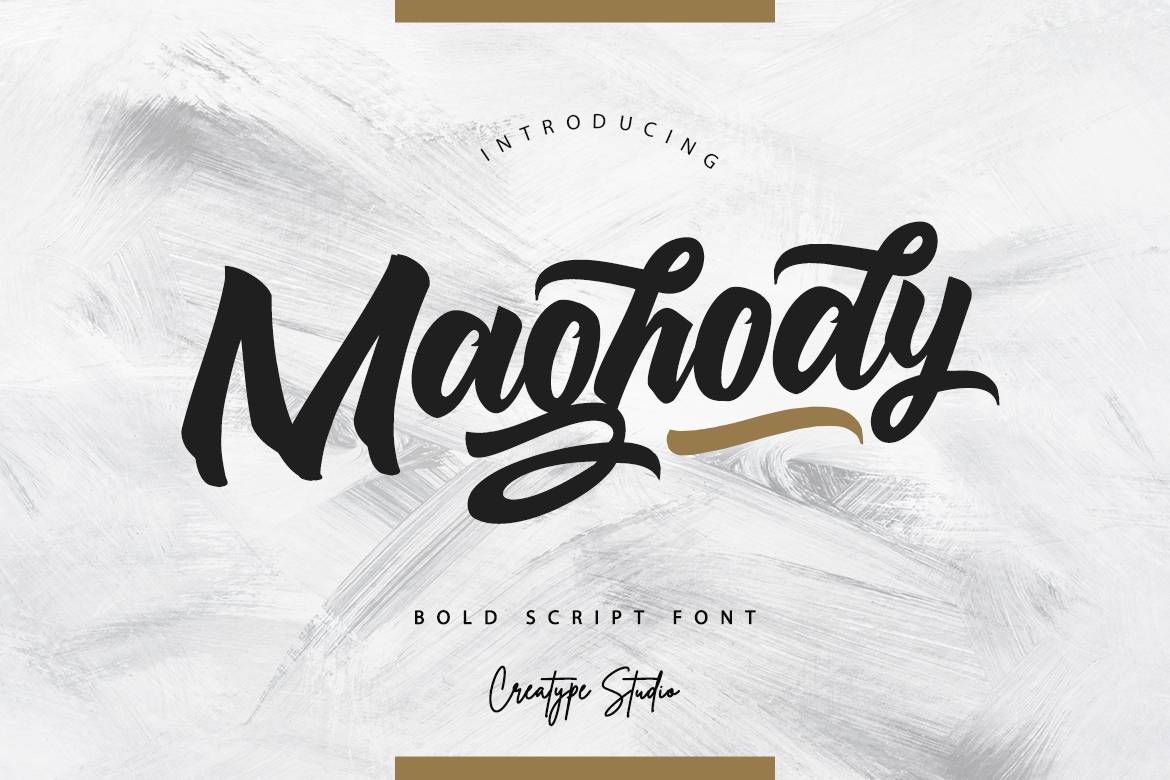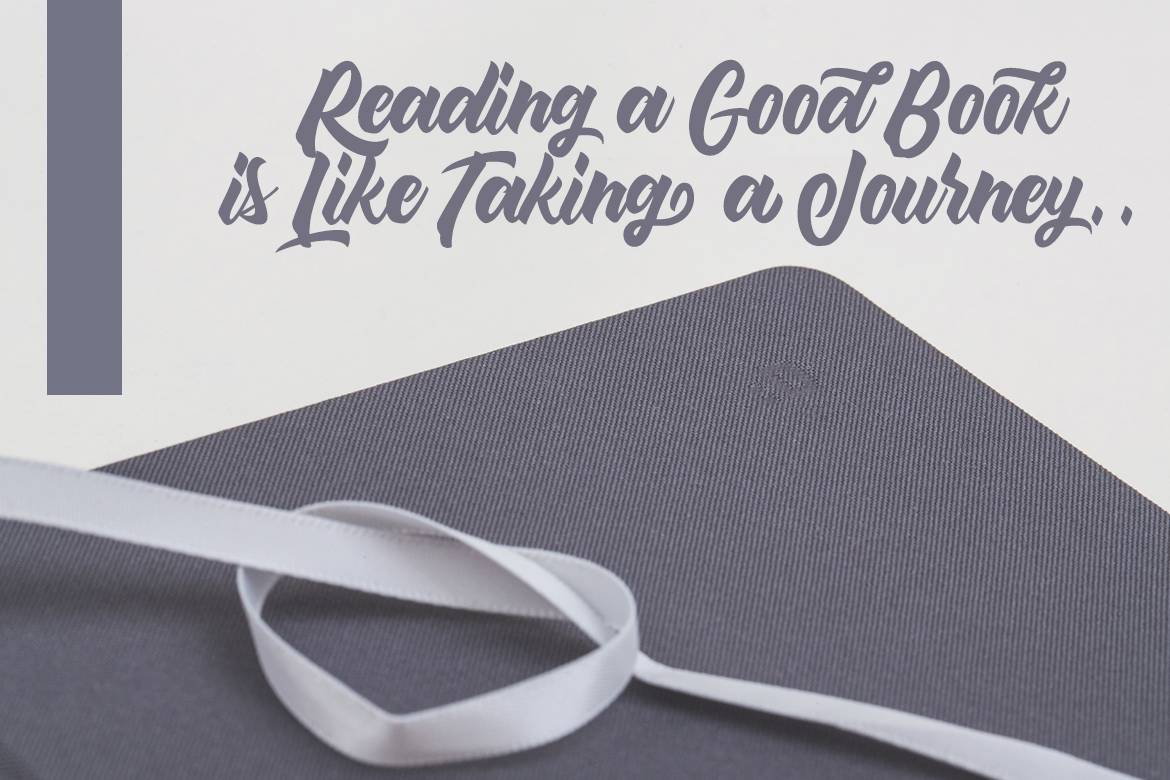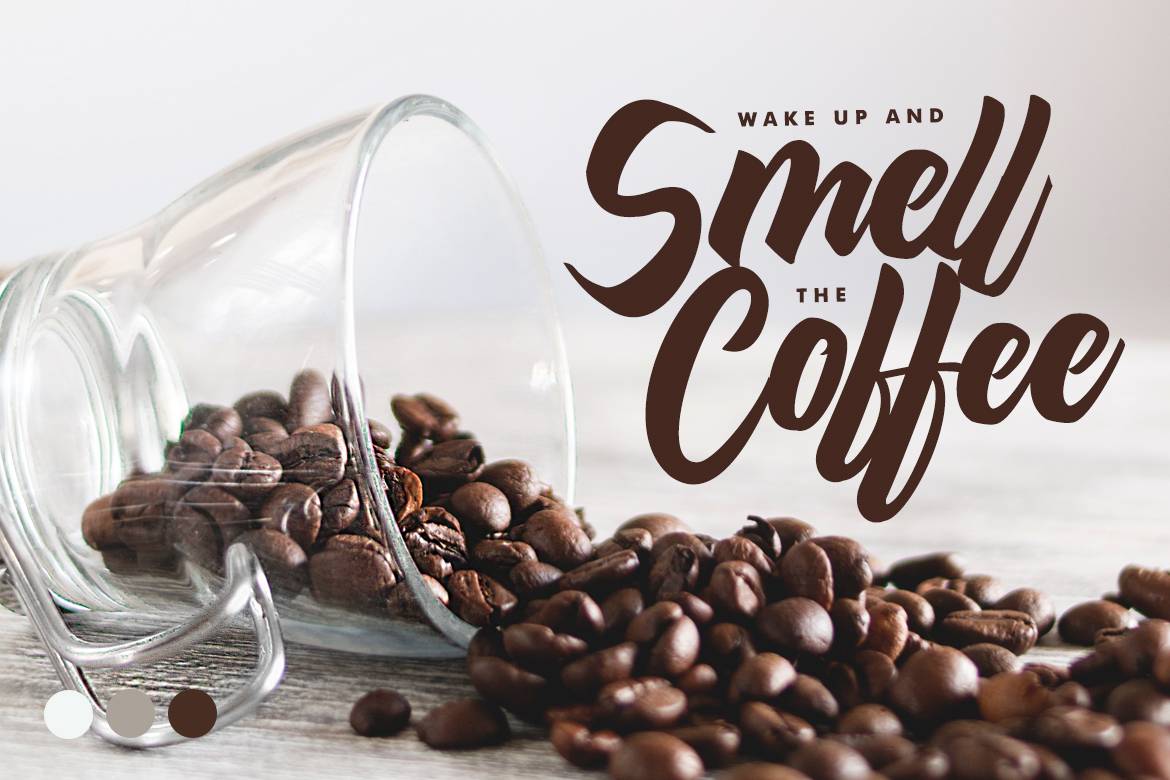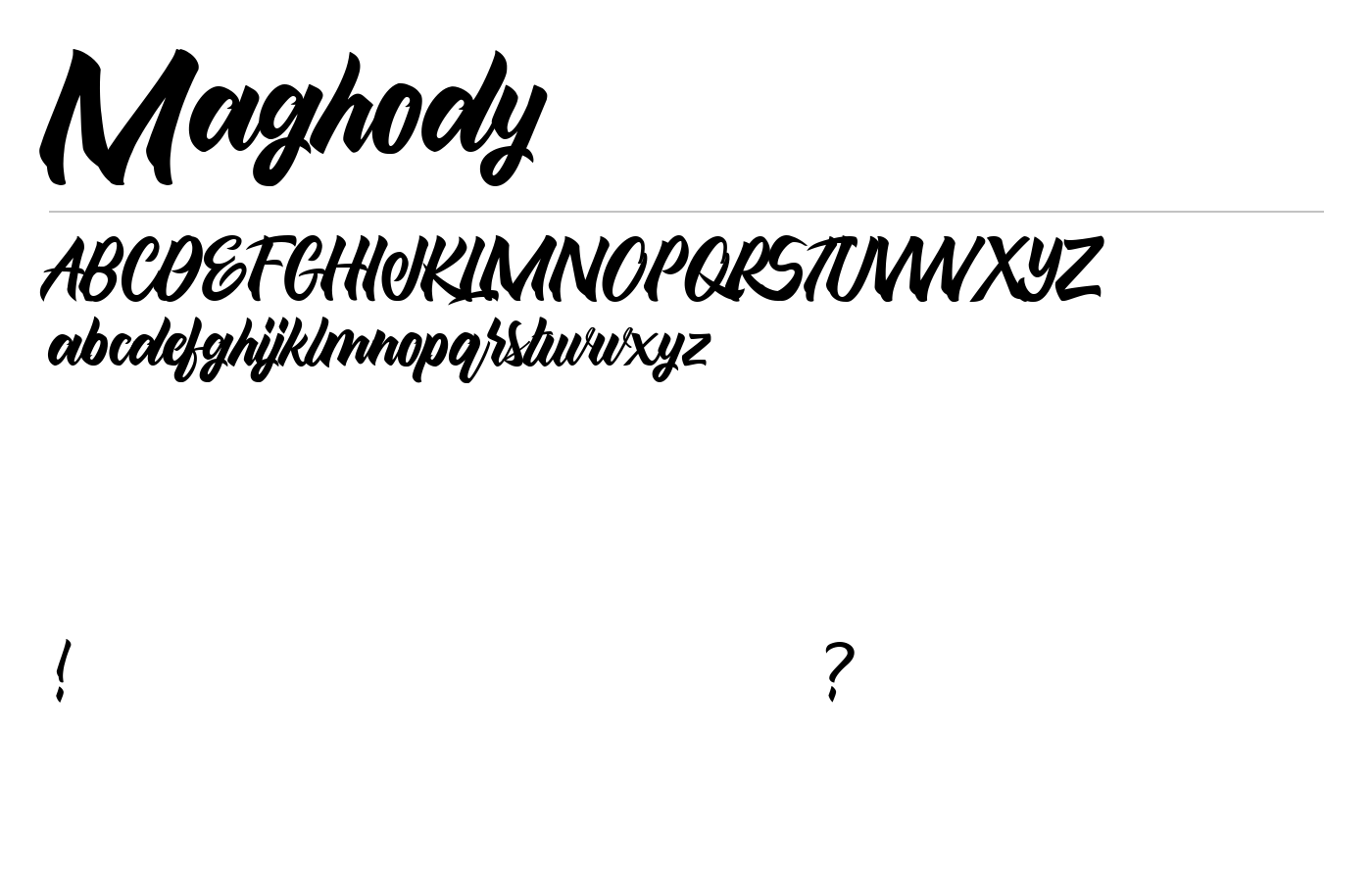
Maghody Script is a bold and lively handwritten font with a smooth, flowing style that combines elegance with a playful, modern flair. Its thick strokes and slightly condensed letterforms create a strong visual impact, making it perfect for eye-catching logos, branding, and headlines that need personality and energy. This font works well in creative projects and packaging where a dynamic yet approachable tone is desired.
Maghody Script Font
About Maghody Script Font